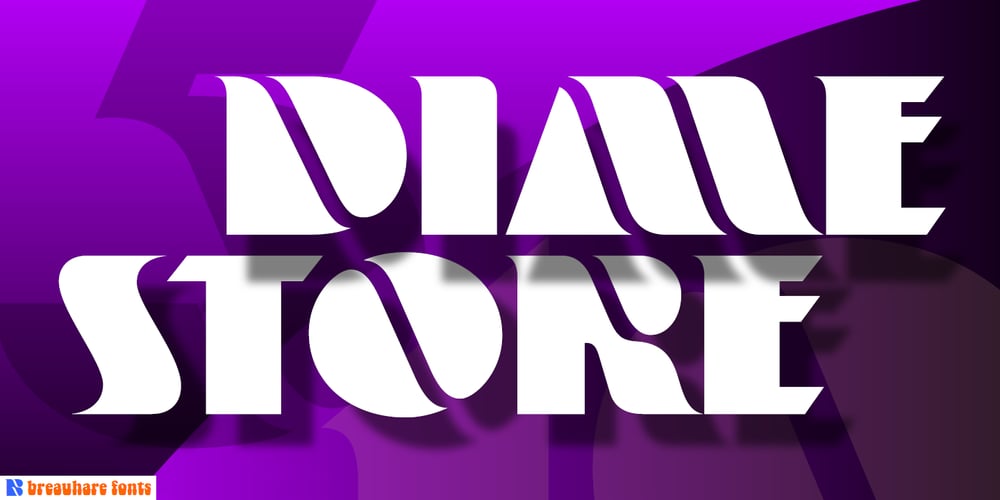
Dime Store Font Family was designed by Harry Warren and published by Breauhare. Dime Store contains 1 styles and family package options. Dime Store is a font inspired by childhood memories of dime stores in downtowns and shopping malls in the 1970s. The font was tweaked and digitized by Bob Alonso, who also digitized Breauhare’s Cooper Goodtime font. Dime Store is a cool, hip, nostalgic way of creating a decorative display, and at times it seems to have a slightly futuristic look, too.